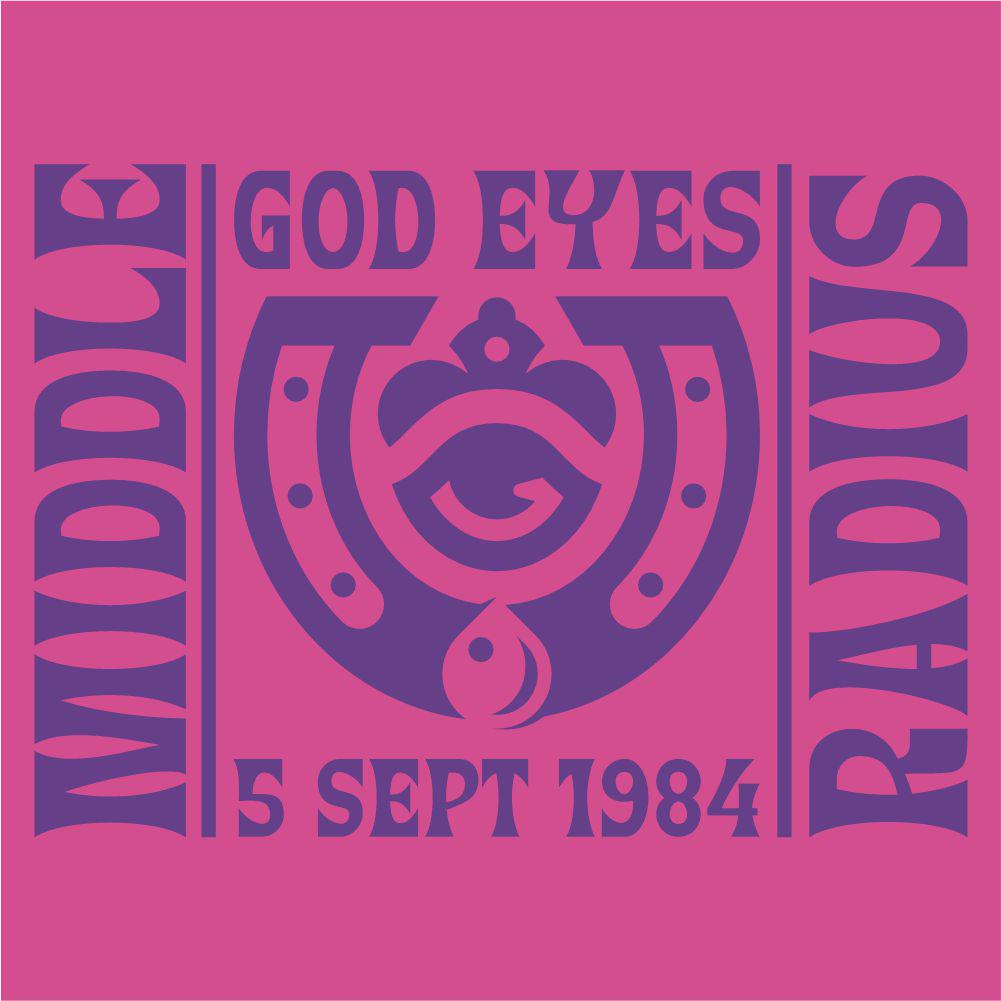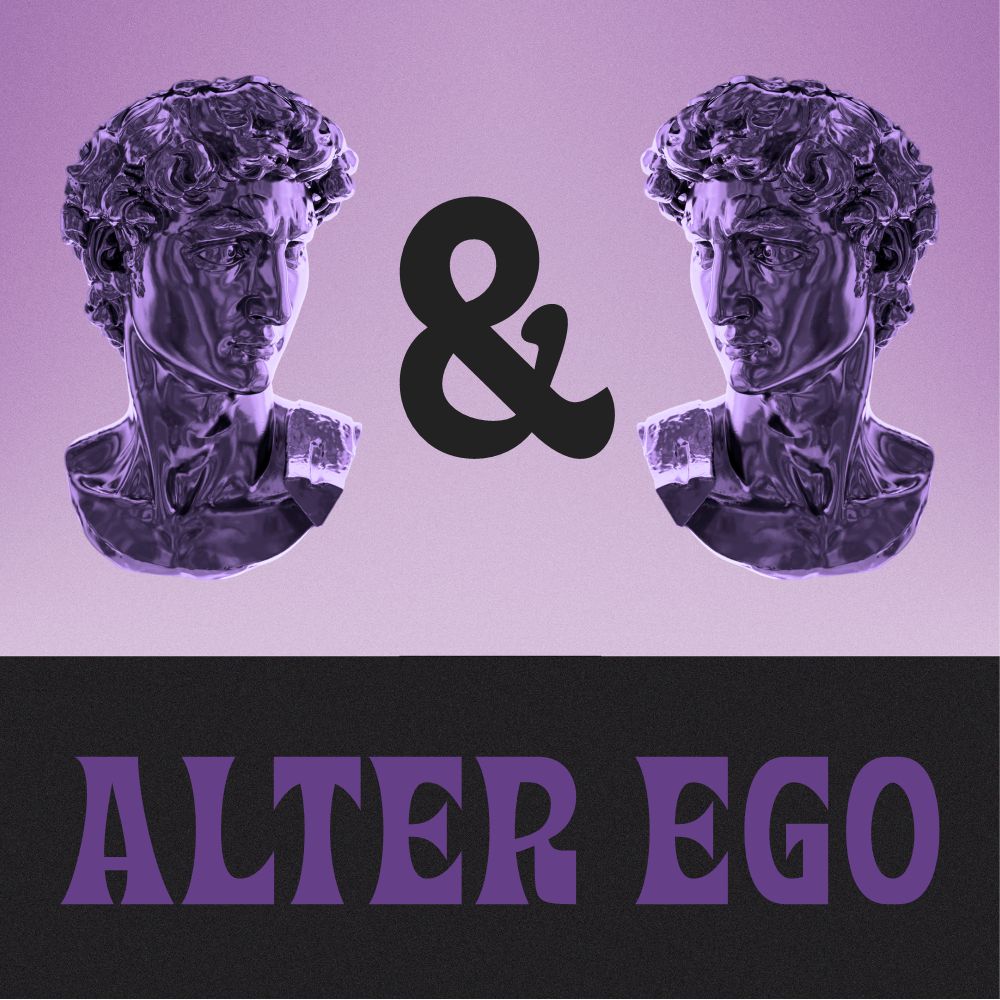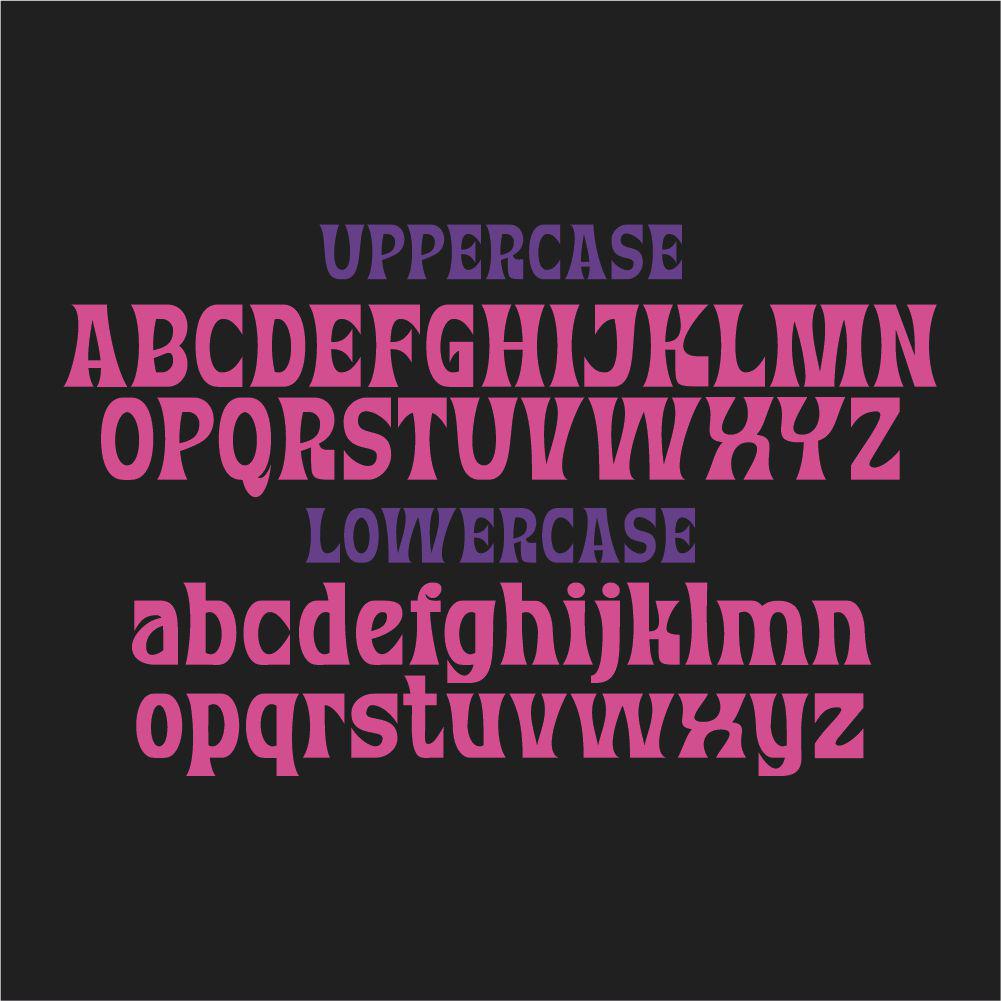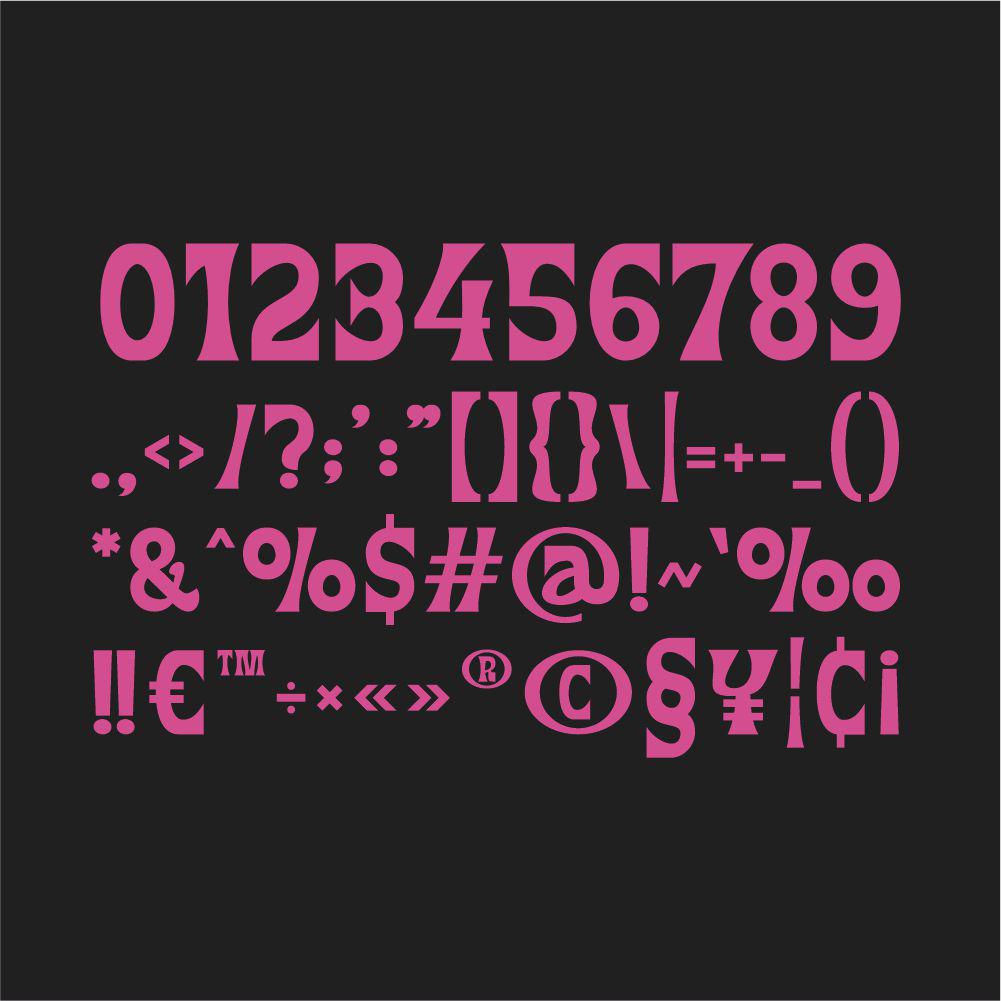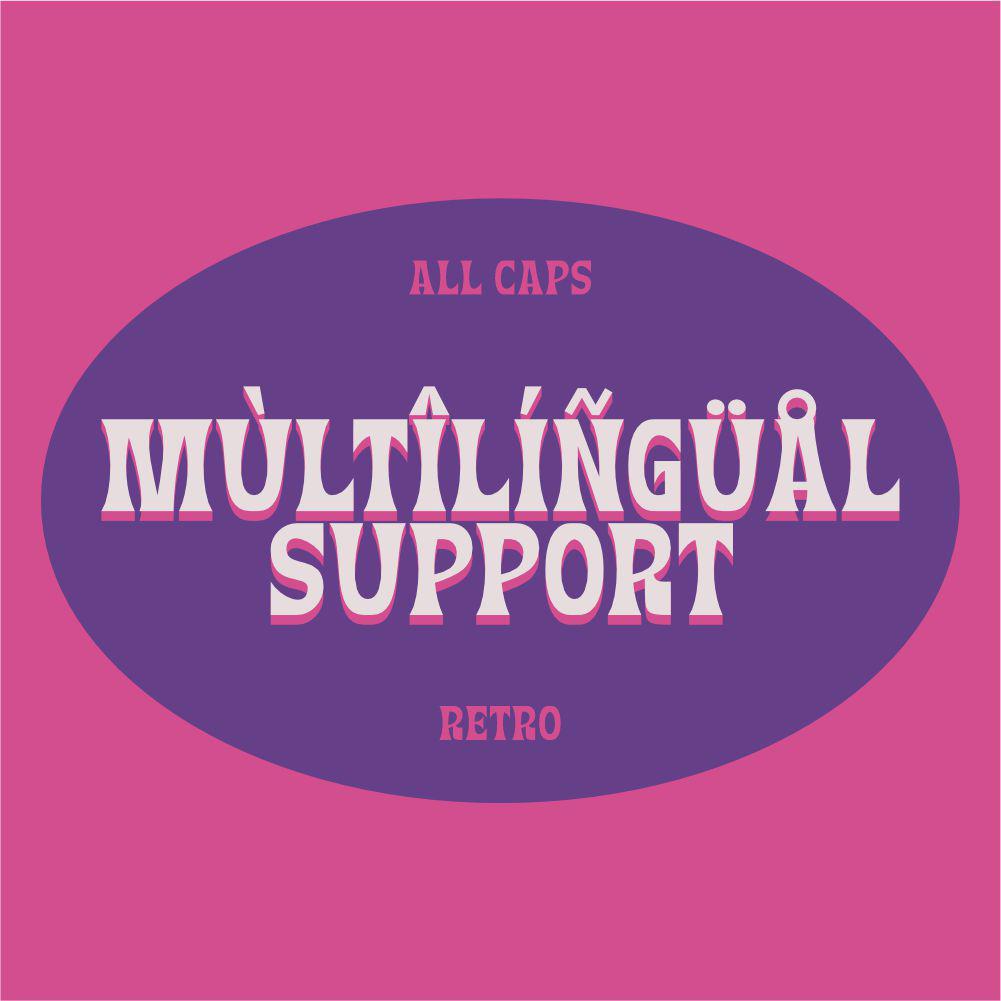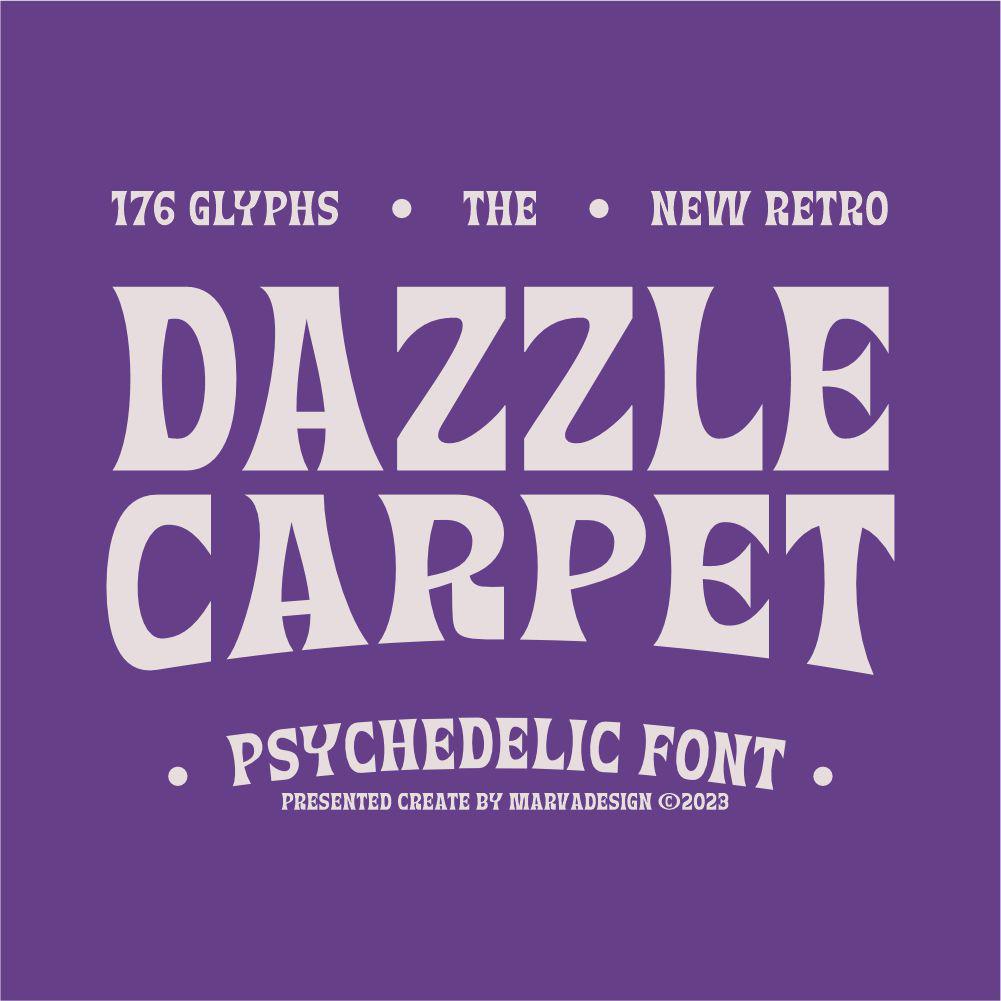
Introducing The Dazzle Carpet font is a psychedelic-inspired typeface with a strong retro aesthetic, reminiscent of the bold and expressive typography from the 1960s and 1970s. Its fluid, wavy letterforms and intricate curves evoke a sense of movement and vibrancy, making it ideal for designs that aim to capture a vintage yet artistic appeal. The font’s unique structure and ornamental details create a visually striking effect, perfect for posters, album covers, branding, and creative projects that embrace the psychedelic and retro era. With its distinctive style, Dazzle Carpet adds a touch of nostalgia while maintaining a modern artistic charm.